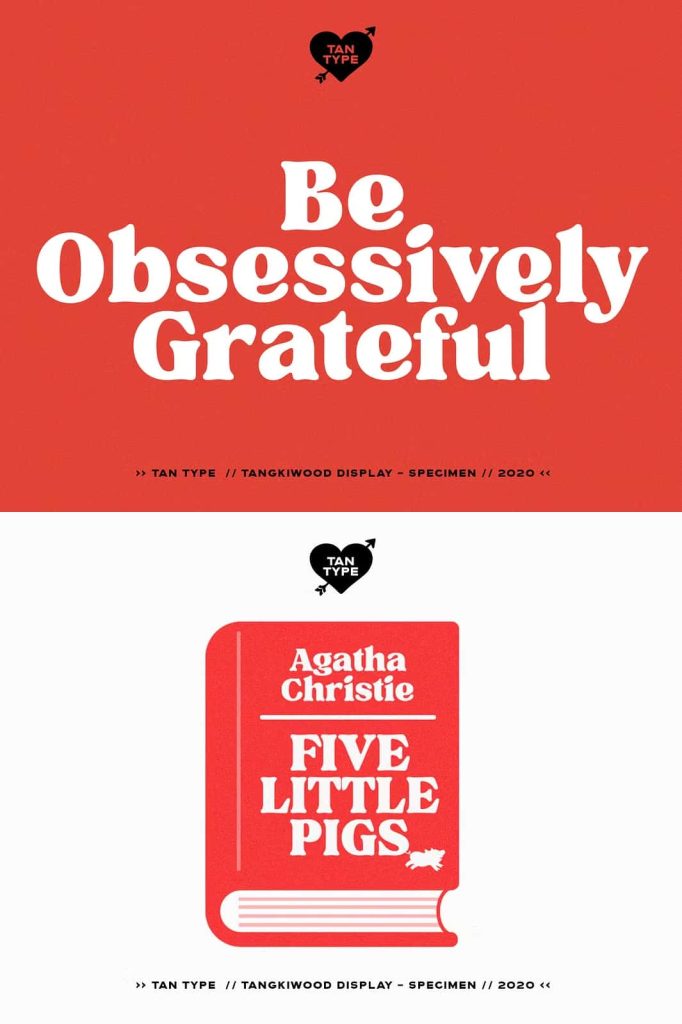
Tangkiwood: A Bold 70s-Inspired Display Serif Font with Playful Energy
Tangkiwood is a bold display serif typeface that captures the expressive spirit and visual confidence of 1970s typography. Designed with a single weight, this font focuses on strong form, personality, and rhythm rather than excessive variation. Its chunky serifs and confident curves give Tangkiwood a distinctive presence that feels fun, nostalgic, and highly expressive.
Inspired by the vibrant design culture of the 1970s, Tangkiwood brings a sense of freedom and creativity to modern layouts. It invites designers to experiment, explore alternates, and build typography that feels energetic rather than restrained.
Rooted in 70s Design and Retro Typography
Tangkiwood draws its inspiration directly from the bold visual language of the 1970s. This era celebrated expressive letterforms, exaggerated serifs, and playful proportions, all of which influence Tangkiwood’s design. The font reflects a time when typography carried attitude and individuality, often becoming the focal point of the composition.
The serif structure feels intentional and confident. Thick strokes and rounded details work together to create a retro aesthetic that feels authentic rather than decorative. Tangkiwood does not imitate the past passively; it actively reinterprets vintage forms for contemporary use.
A Fun Serif Designed to Be Played With
Tangkiwood was designed to encourage experimentation. Its bold shapes invite designers to scale it large, layer it with textures, or pair it with modern sans-serif fonts for contrast. The font thrives in display settings where personality and impact matter more than subtlety.
This playful quality makes Tangkiwood especially effective for creative projects that aim to feel expressive, confident, and visually engaging.
Single Weight with Strong Visual Impact
Although Tangkiwood features a single weight, it delivers substantial visual range through form alone. The bold structure ensures excellent visibility and readability in headlines, posters, and display applications. Designers can rely on shape, spacing, and alternates to create hierarchy without needing multiple weights.
The font performs best at larger sizes, where its serif details and proportions can fully shine. This makes Tangkiwood ideal for titles, mastheads, packaging, and statement typography.
Alternate Characters for Uppercase and Lowercase
Tangkiwood includes alternate characters for both uppercase and lowercase letters, offering additional flexibility and creative control. These alternates allow designers to avoid repetition and introduce variation, making typography feel more organic and custom-crafted.
By mixing standard characters with alternates, designers can build unique wordmarks, logos, and headlines that stand apart from generic display fonts.
Multilingual Support for Global Use
Tangkiwood includes multilingual support, allowing it to function effectively in international design projects. This feature ensures consistency across languages while preserving the font’s bold personality and retro influence.
Multilingual capability makes Tangkiwood suitable for global branding, editorial layouts, and creative campaigns that reach diverse audiences.
Perfect for Posters, Branding, and Creative Display Design
Tangkiwood excels in bold, expressive applications. It works exceptionally well for posters, album covers, packaging, editorial headlines, event branding, and retro-inspired designs. Its strong serif forms demand attention and establish a clear visual identity.
The font pairs effectively with minimalist layouts, modern photography, or textured backgrounds, creating contrast between bold typography and clean composition.
Why Choose Tangkiwood?
Tangkiwood offers designers a confident, playful serif font rooted in 70s aesthetics while remaining functional for modern design needs. Its bold structure, alternate characters, and multilingual support make it a reliable display typeface for projects that value personality and impact.
If your design calls for a fun serif font that celebrates retro influence and creative freedom, Tangkiwood delivers a distinctive typographic voice that transforms text into a visual statement.